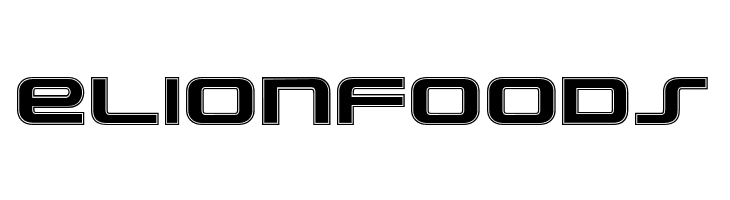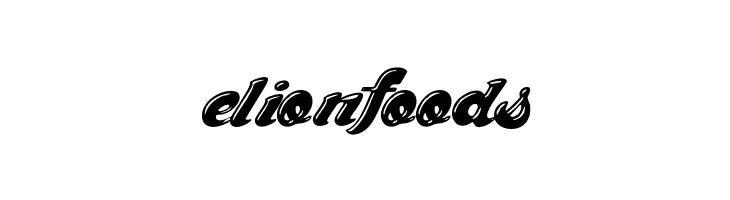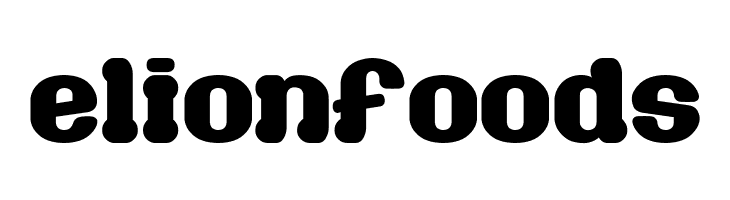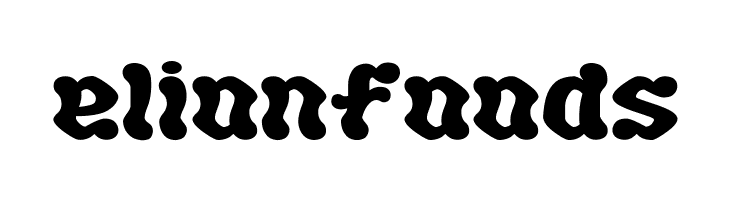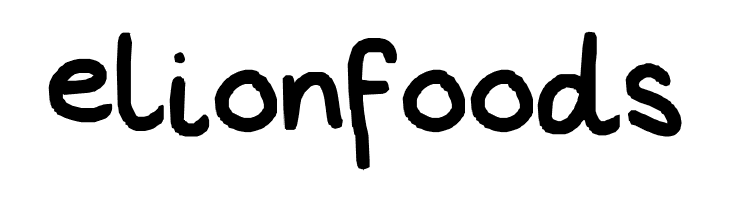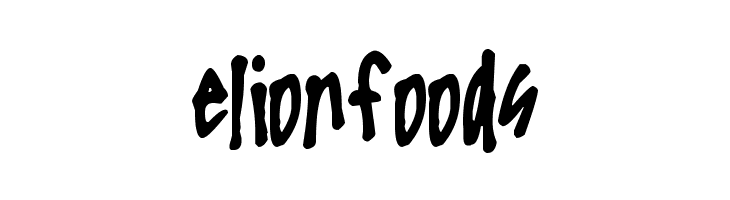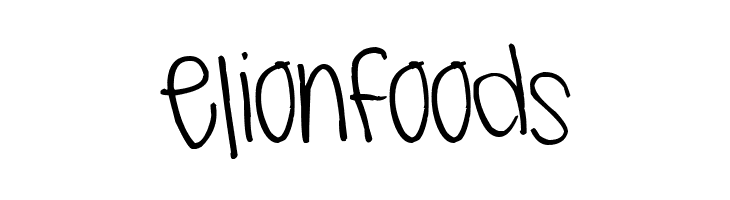
A bold, futuristic font with geometric shapes and clean lines.
A bold, cursive font with dynamic curves and a shadow effect for added depth.
A bold, playful font with rounded edges and a bubbly appearance.
A playful, bold font with rounded strokes and a whimsical, retro-modern style.
A playful handwritten font with a whimsical and informal style.
A playful, handwritten font with bold, irregular strokes and a quirky, informal style.
A playful, casual handwritten font with a whimsical and informal style.